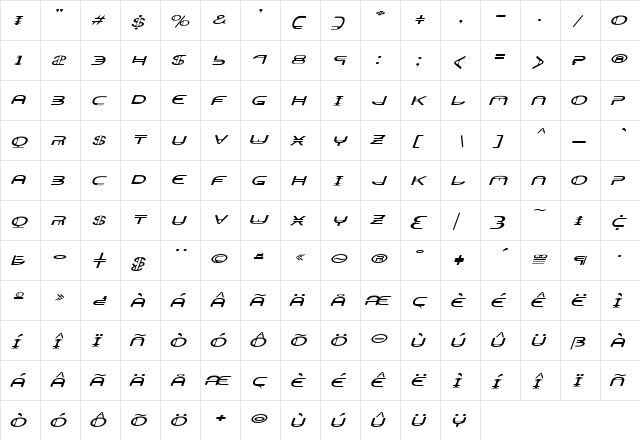
AeratorObliqueA Regular Font Preview
AeratorObliqueA Regular
AeratorObliqueA Regular Font Details
Design Context for AeratorObliqueA Typeface
AeratorObliqueA takes a measured approach to typography — its balanced proportions and neutral character make it a reliable workhorse for both digital and print work. The dynamic lean of this cut emphasises speed and emphasis in any layout.